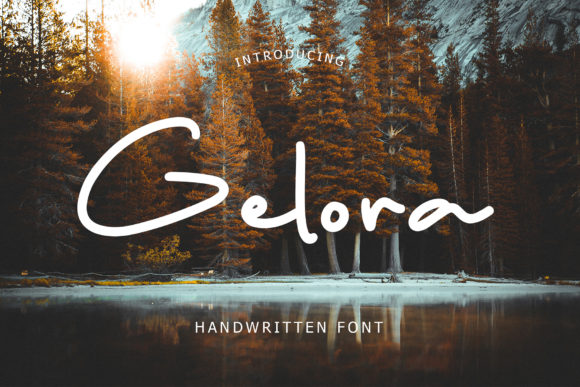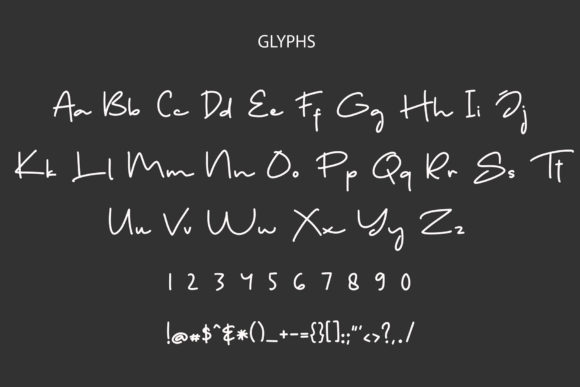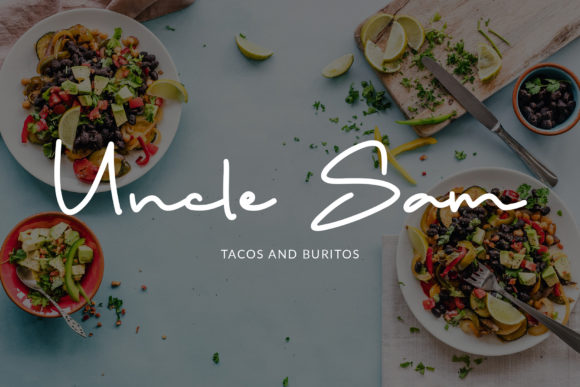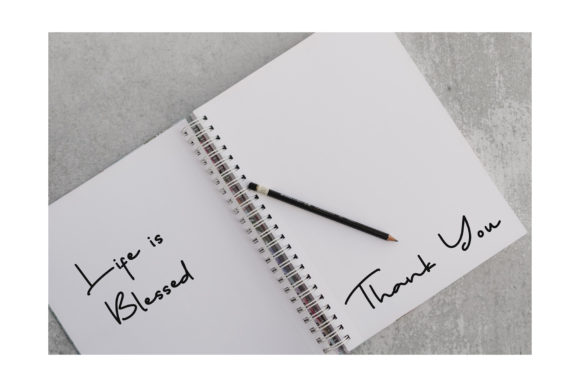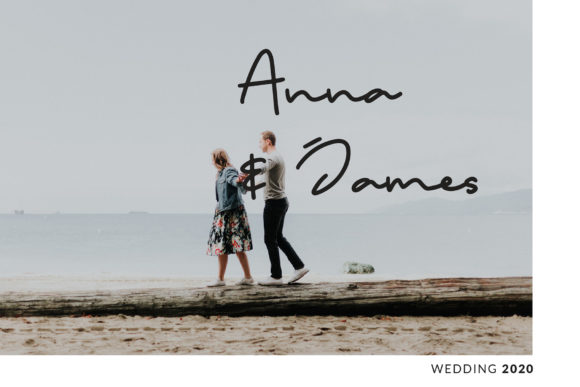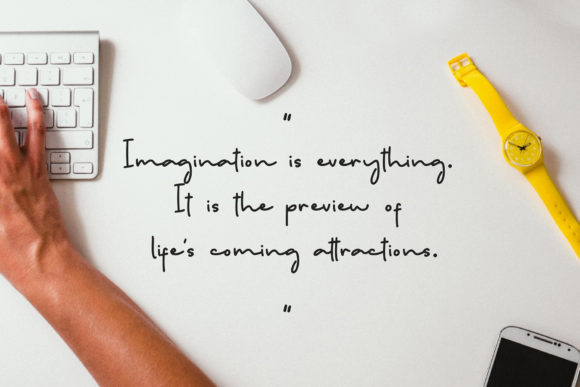
Gelora Font
About Gelora Font
Gelora is a cute and modern handwritten font, created by using a brush pen. Clean and a little bit quirky, this font is the perfect fit for all of your logos, branding, social media, and crafty DIY projects.